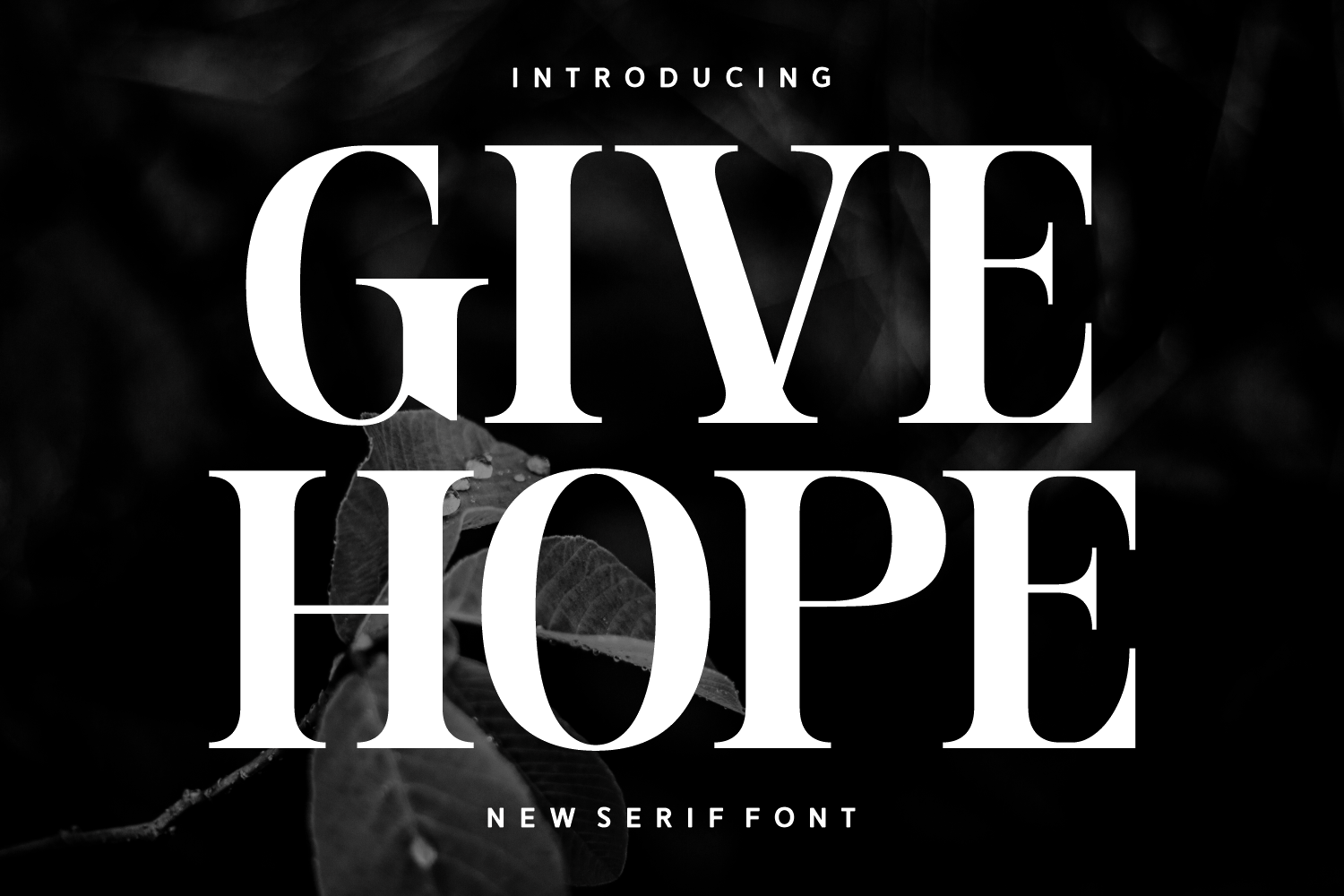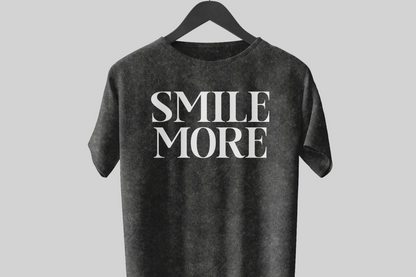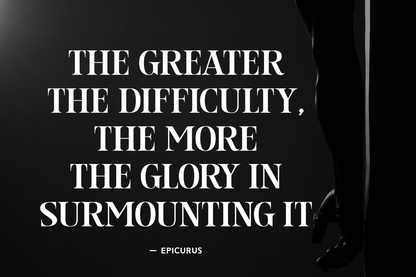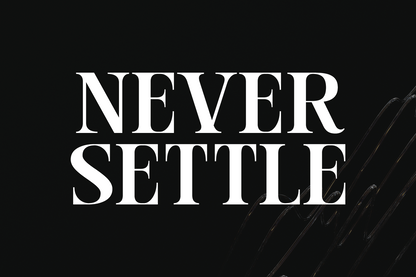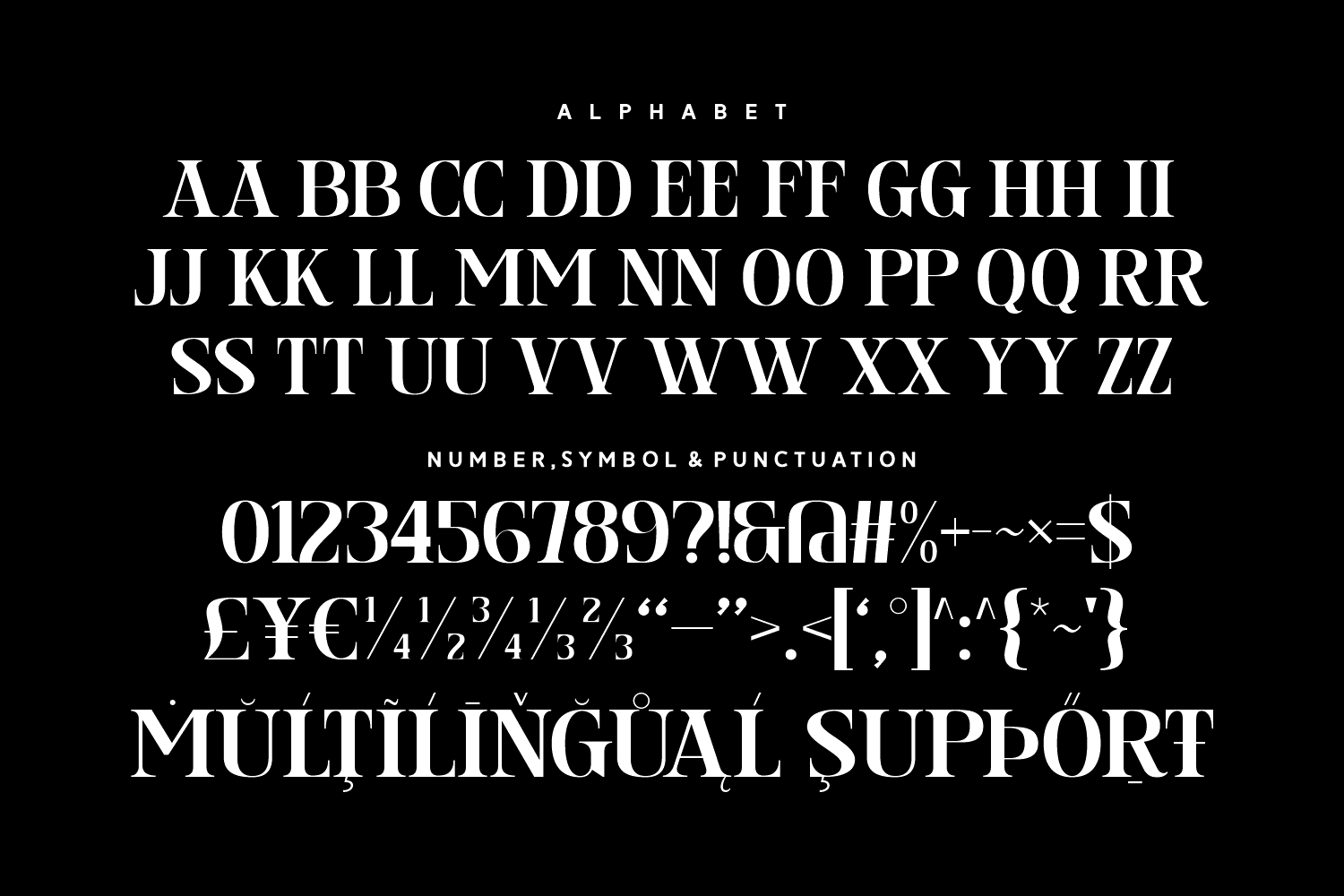
Give Hope is a strong and elegant serif font with emotional resonance. Featuring wide letterforms and soft curves, it’s designed for message-driven designs, nonprofit branding, motivational prints, and storytelling layouts.